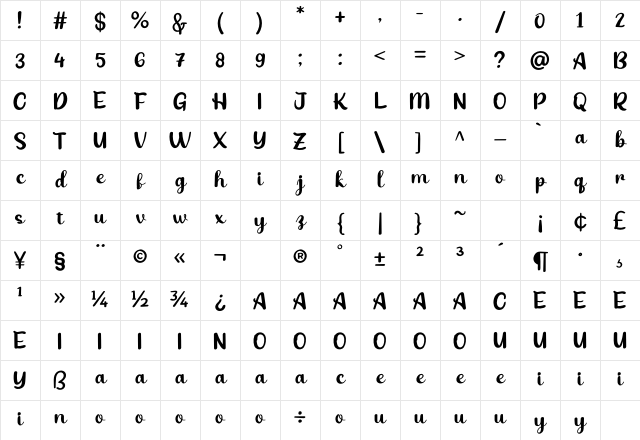
Babang Regular Free Font
Babang Regular
Designer: rozi
Design Context for Babang
Babang is a composed and adaptable typeface that performs quietly and consistently across a wide range of design contexts.